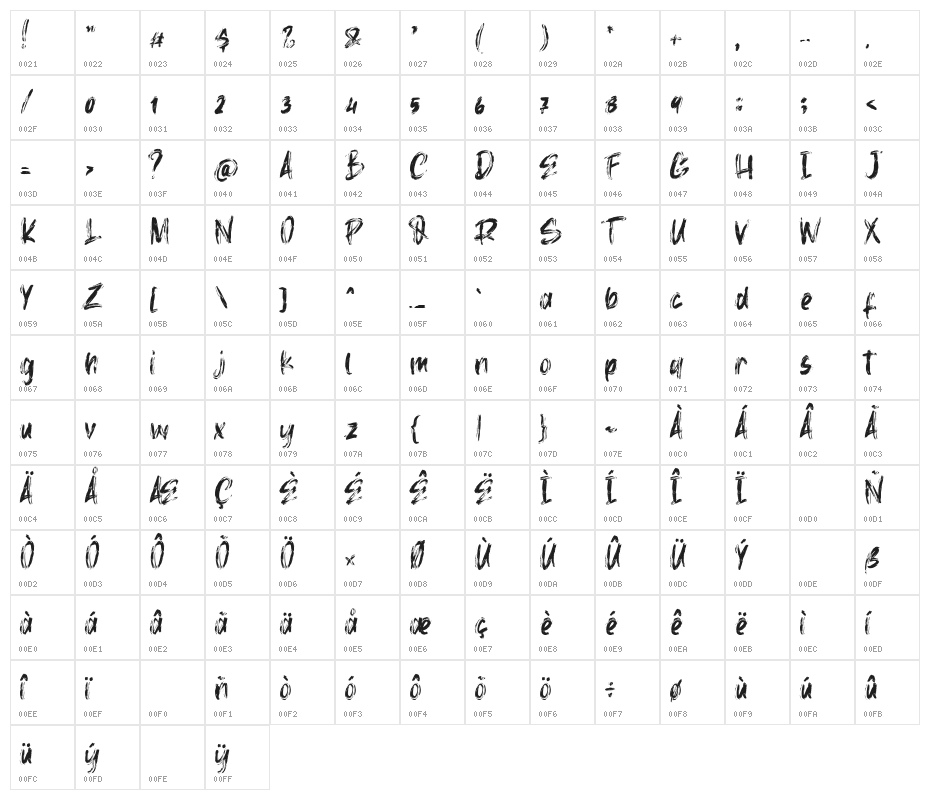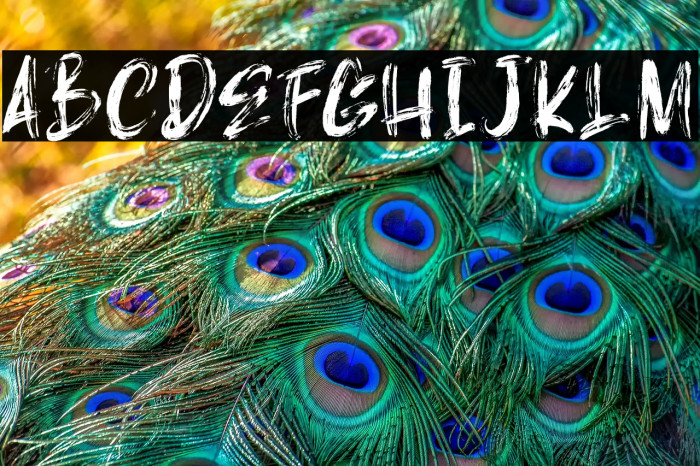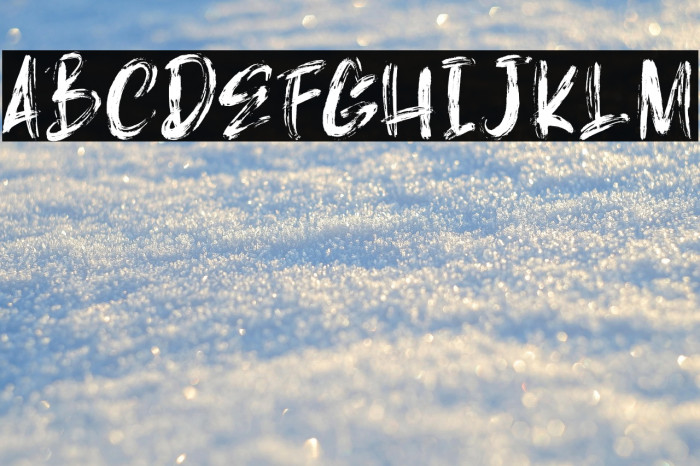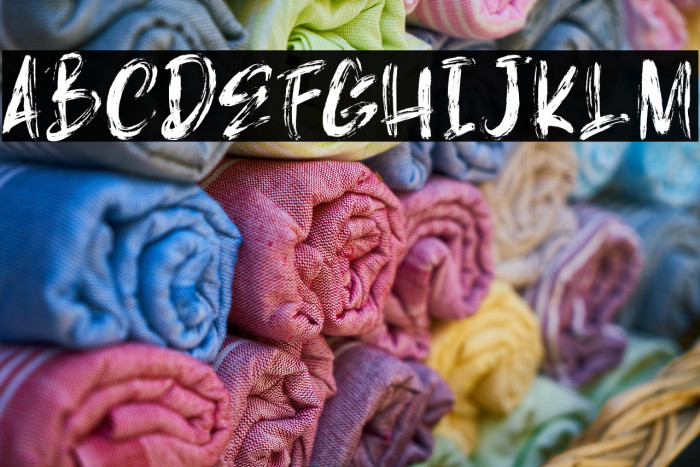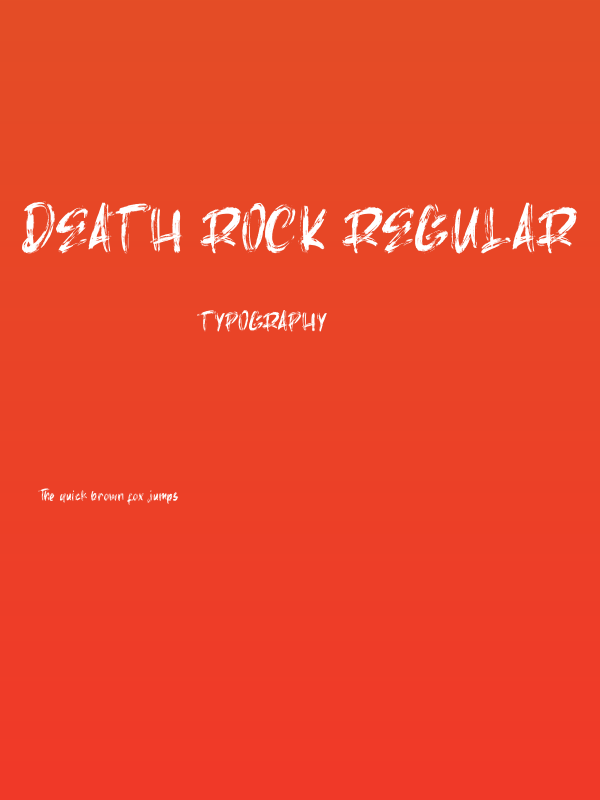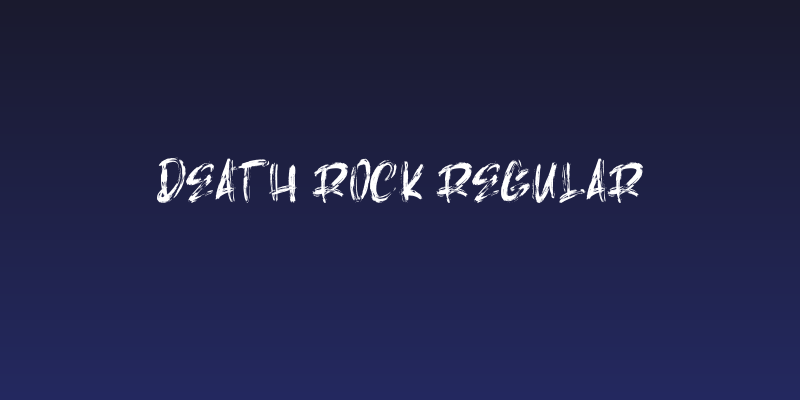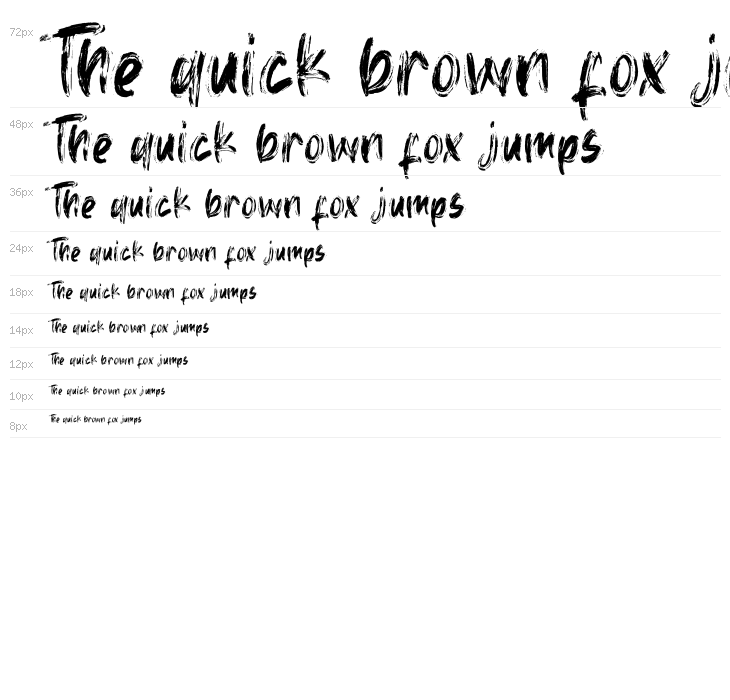
Death Rock Regular Font
Death Rock Regular Description
This font exudes a raw, edgy aesthetic with its brushstroke-like appearance, giving it a dynamic and rebellious feel. The letters are irregular and jagged, resembling hand-painted strokes that convey a sense of urgency and intensity. The uppercase and lowercase characters maintain a consistent style, with varying thicknesses that add to the chaotic yet controlled look. Numbers and special characters follow the same expressive design, making the font suitable for projects that require a bold statement. Its unique style captures attention and evokes a sense of movement and energy.
| Proposed Projects | Ideal for music album covers, concert posters, edgy branding, and streetwear designs. |